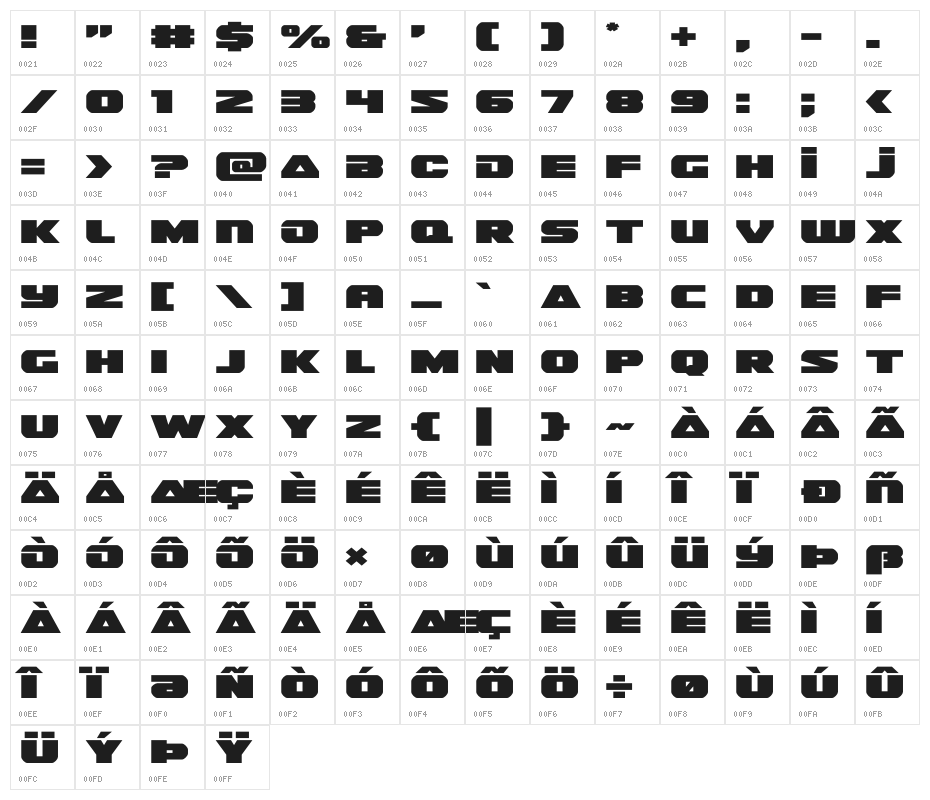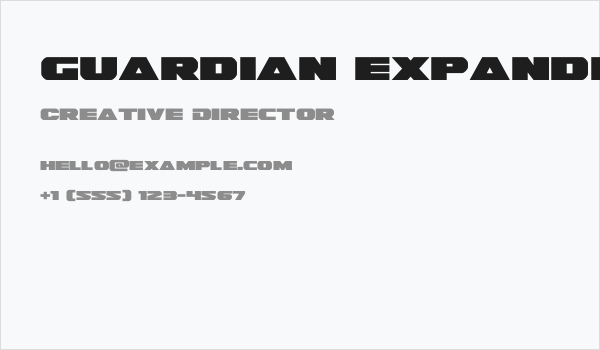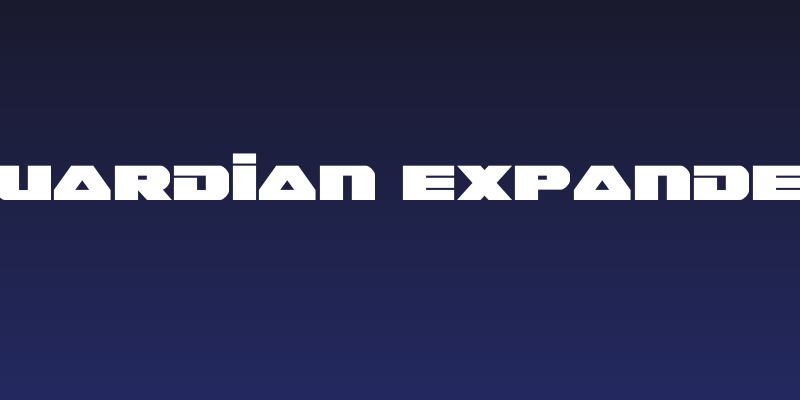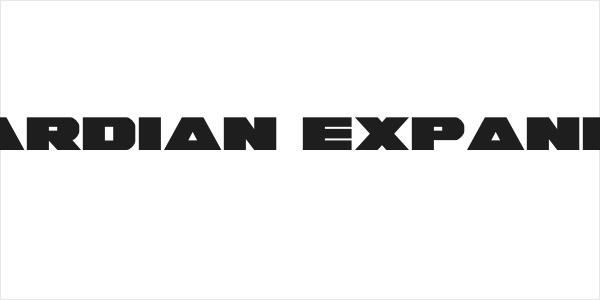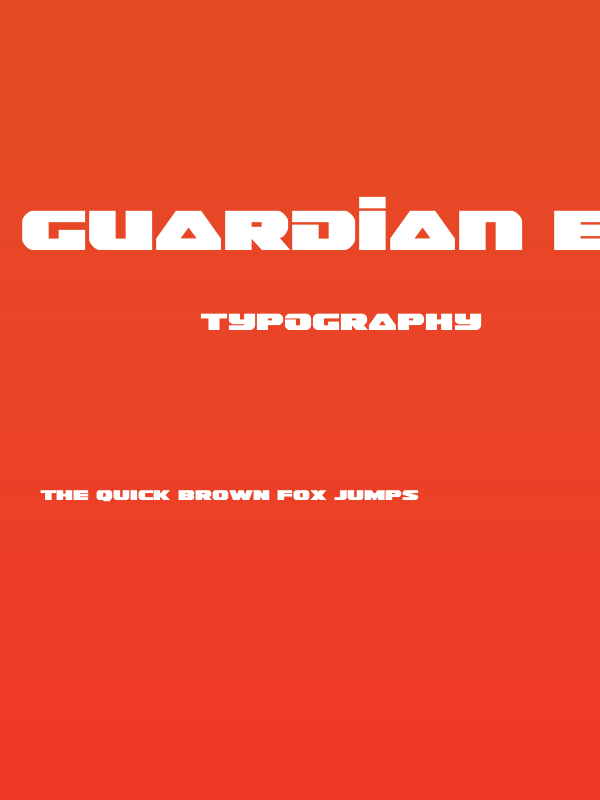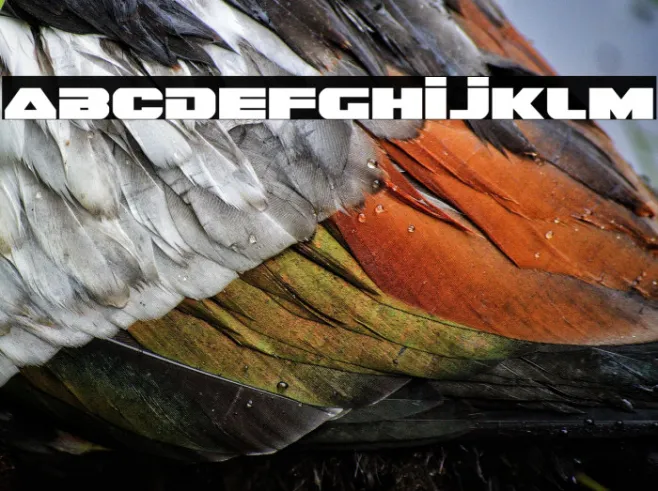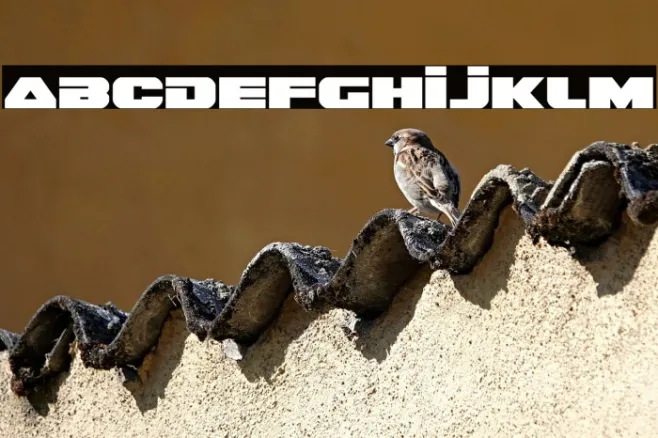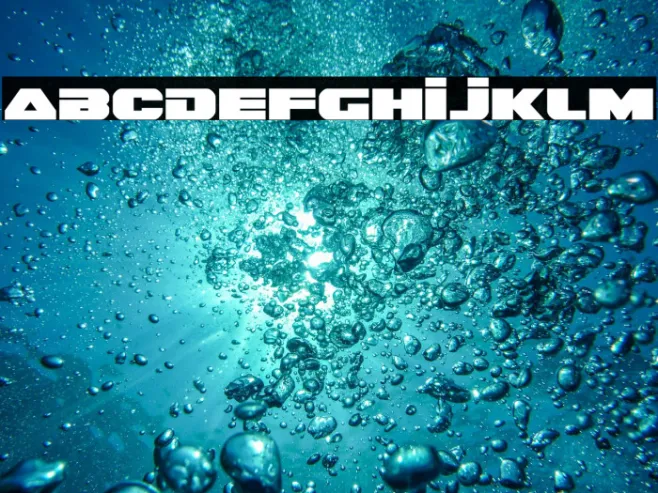
Guardian Expanded Font
Guardian Expanded Description
This font features a bold and striking design with a futuristic and geometric aesthetic. The characters are wide and blocky, with sharp angles and a strong presence. The uppercase and lowercase letters maintain a consistent style, emphasizing a sense of uniformity and strength. The numbers and special characters follow the same bold and angular design, ensuring a cohesive look across all glyphs. This typeface is ideal for making a powerful visual impact, with its expanded width and heavy weight contributing to its commanding appearance.
| Proposed Projects | Ideal for use in sci-fi themed projects, video game titles, movie posters, and branding that requires a strong, modern look. |